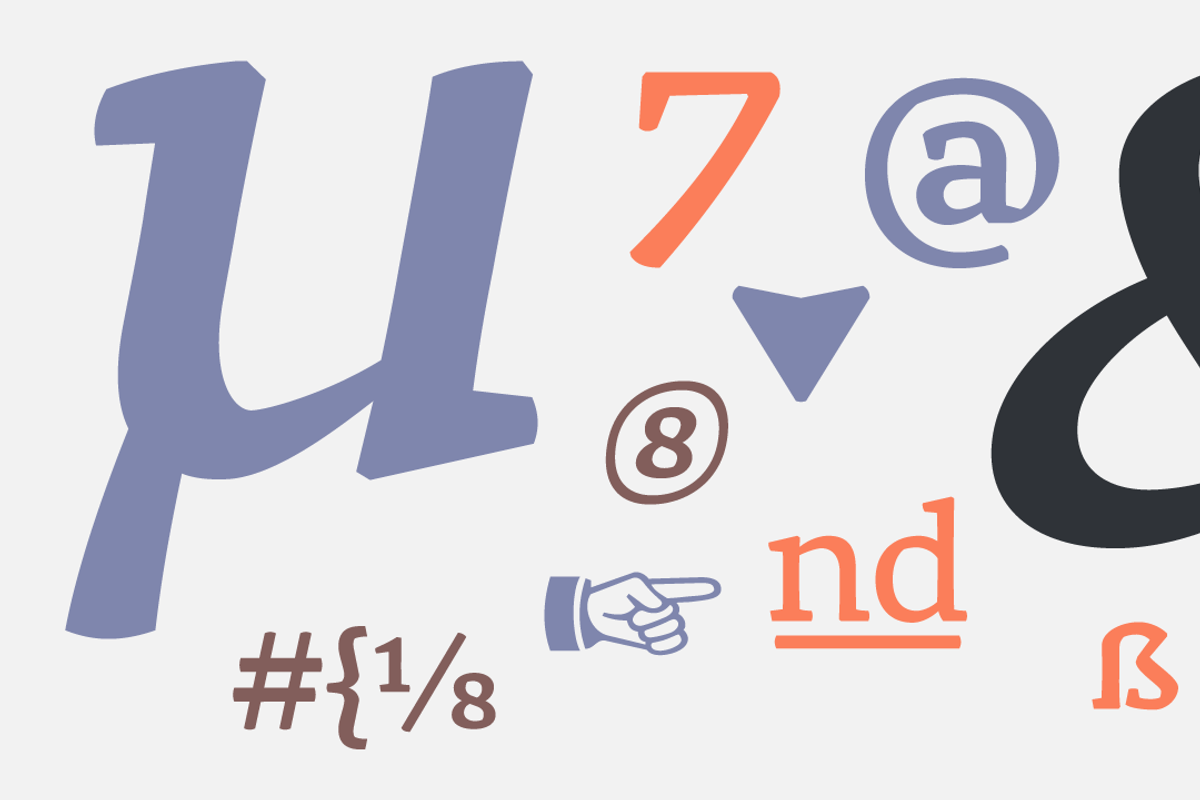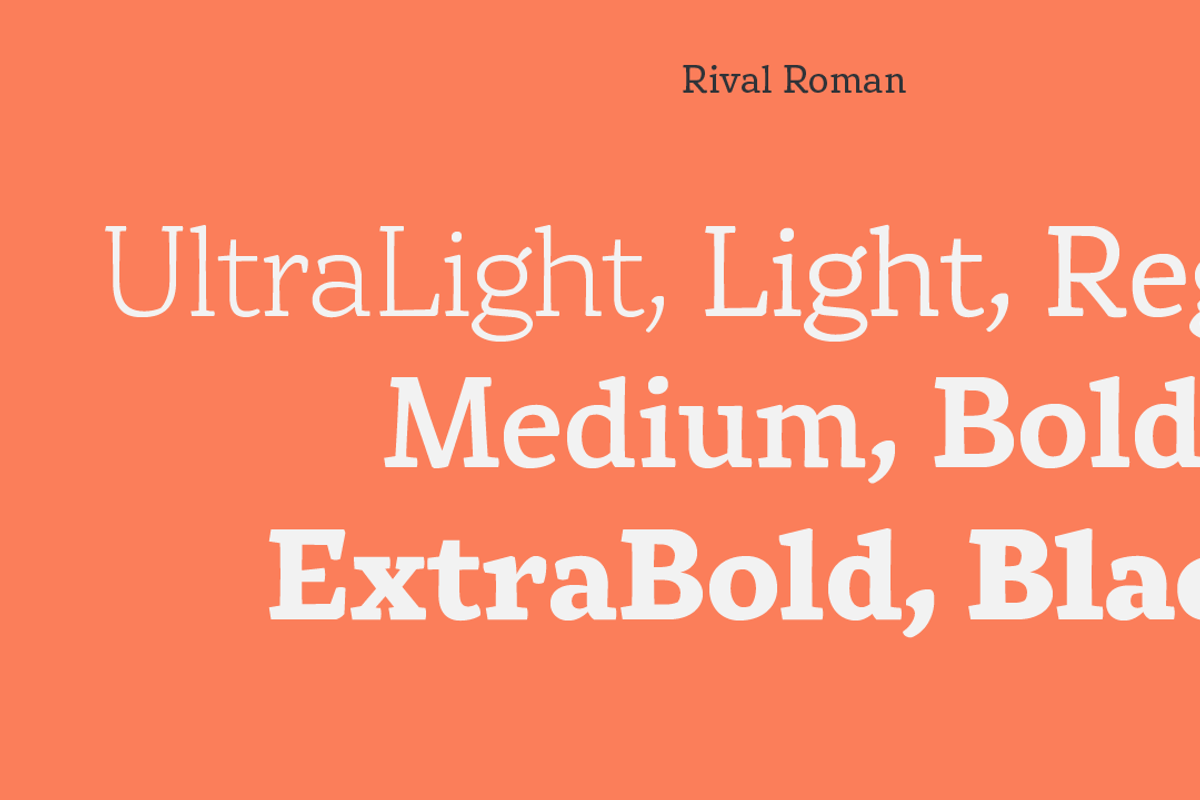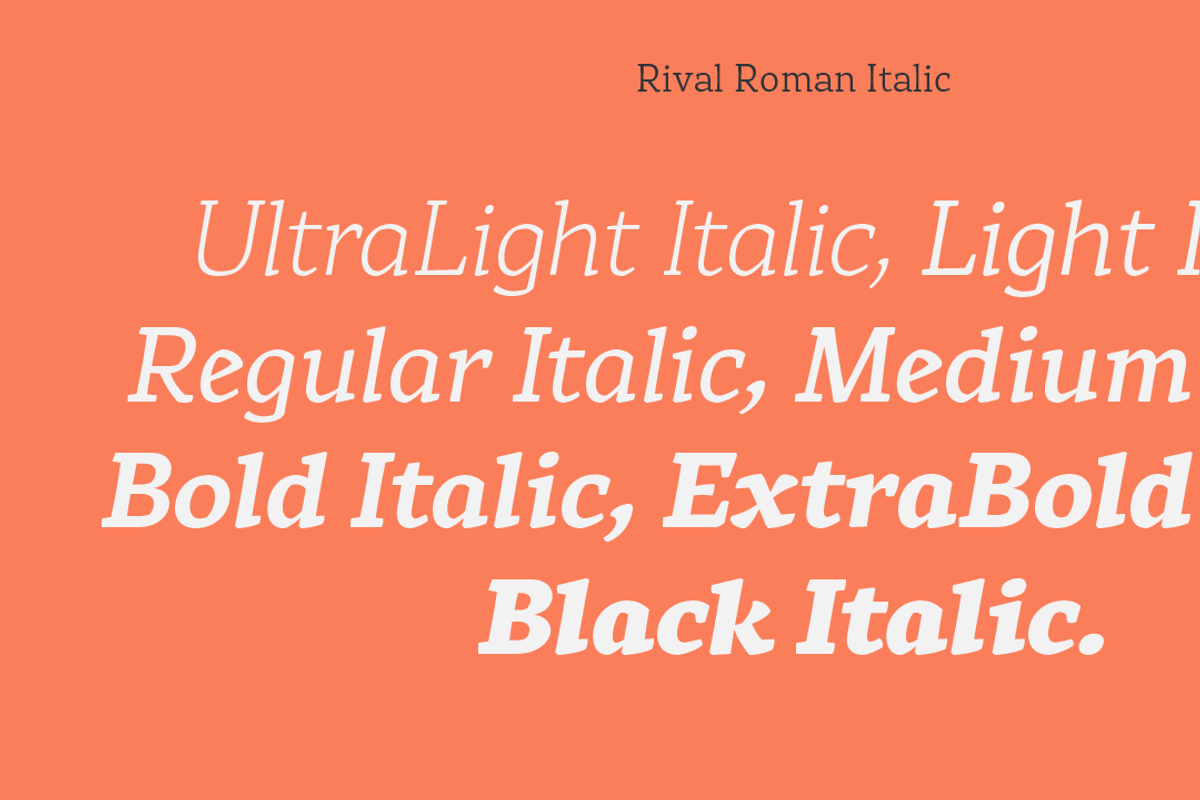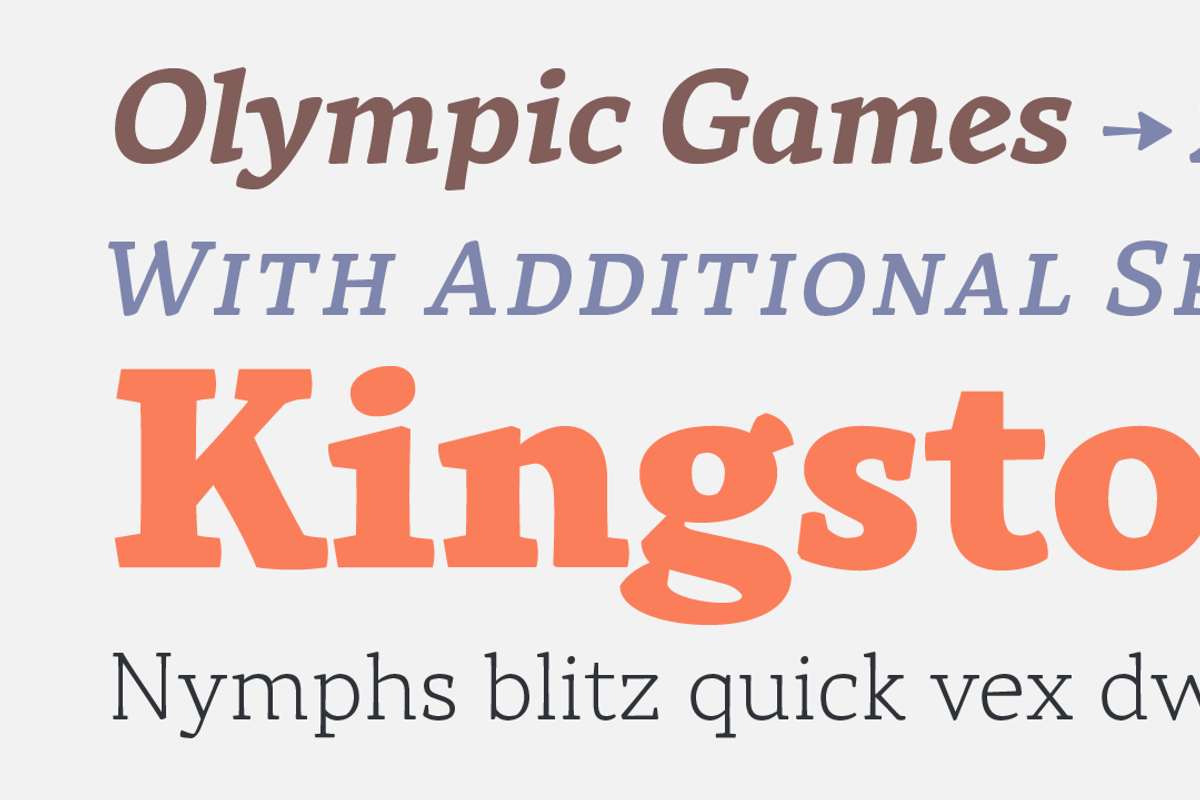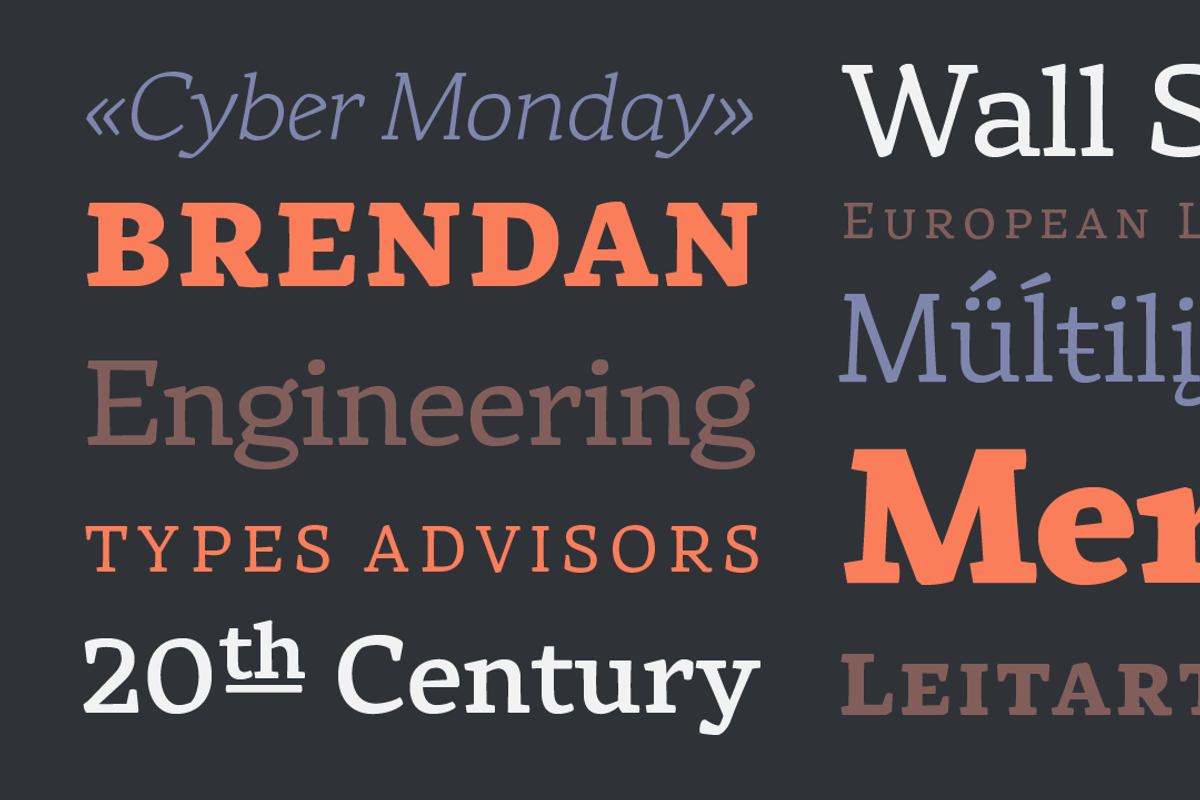
Rival Font Family
Rival Font Family by Mostardesign Type Foundry is a font selected for branding, posters, packaging, typography.
- About this font family Rival – A serif font family with contemporary distinctive signs Rival is a modern serif font family inspired by chara
- Rival provides advanced typographical support with OpenType features such as small caps, ligatures, discretionary ligatures, old style figur
Why Rival Font Family is worth a look
Rival Font Family by Mostardesign Type Foundry fits naturally into Branding, posters, packaging, typography.